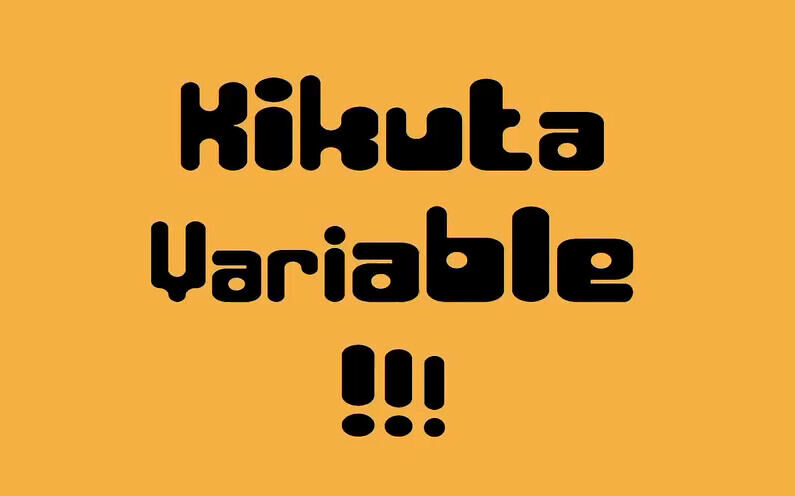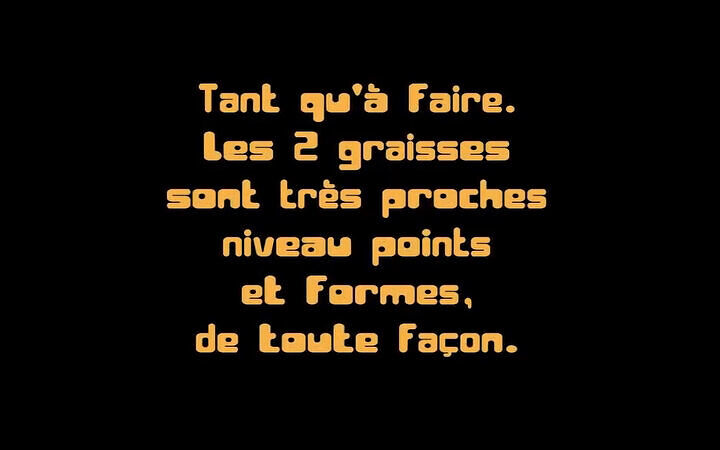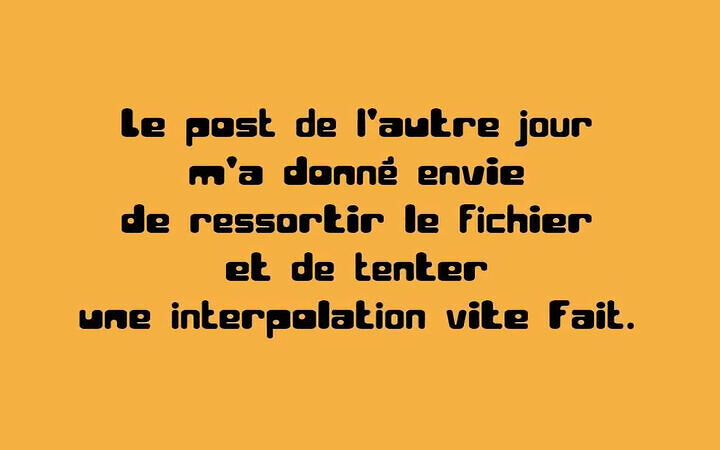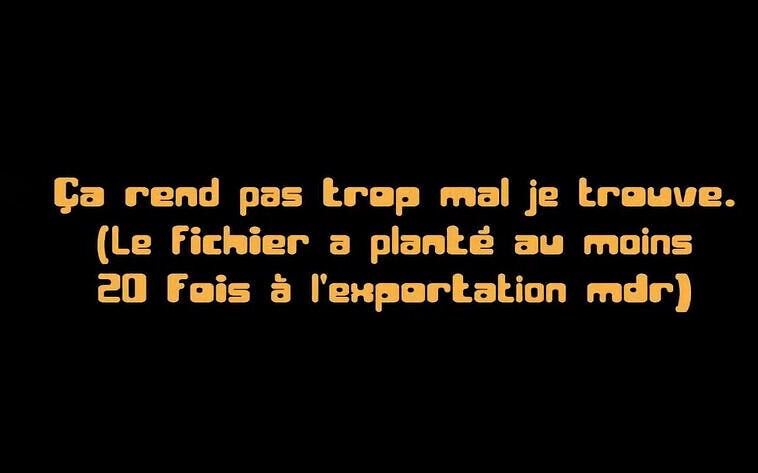
Kikuta is a half-mono, half-modulo typeface created for the title of my thesis Emulare: Imitating the machine to better preserve it. Available in geometric Regular, a slightly funky Bold, and Variable for variety (if you hover your mouse over it, it moves, wow!).